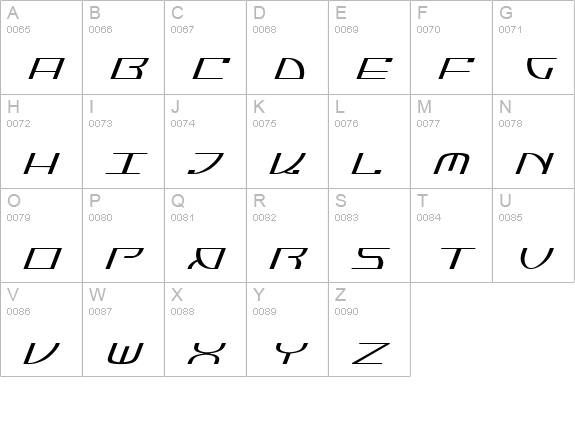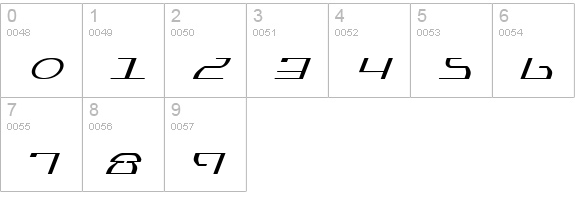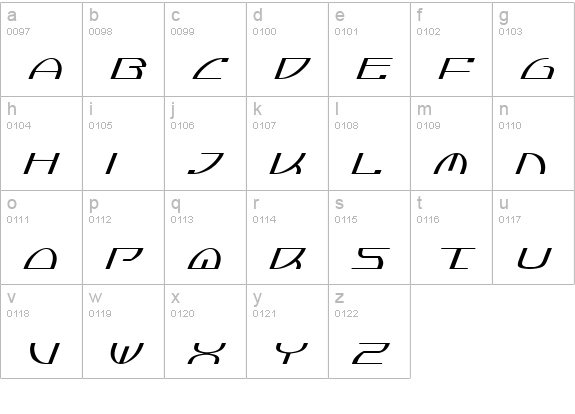
Jumptroops Light Italic is a refined, elegant, italic variant in the Jumptroops typeface family \xE2\x80\x94 well suited to elegant body text, refined sub-headings, and luxury branding.
Introducing Jumptroops Light Italic font, a sleek and modern typeface perfect for adding a touch of sophistication to your designs. This versatile font features elegant curves and a light weight that exudes a sense of grace and style. Whether you're designing a wedding invitation, a logo, or a website, Jumptroops Light Italic is sure to make your text stand out. The best part? This exquisite font is available for free download at FontsMarket.com. So go ahead and elevate your design projects with the timeless beauty of Jumptroops Light Italic font.